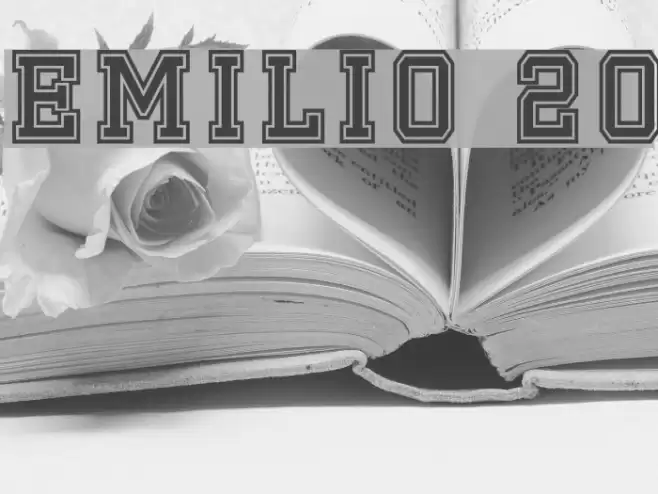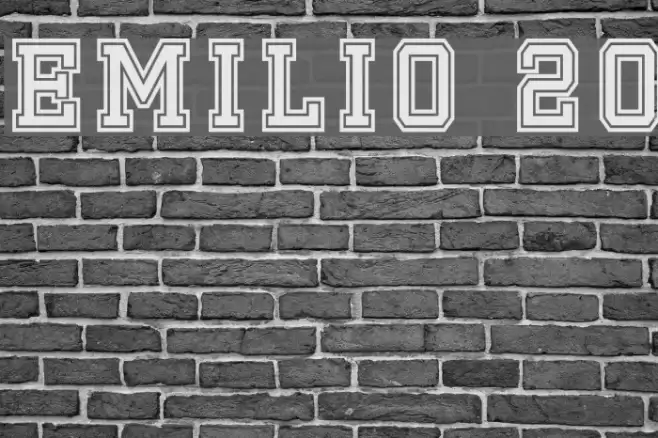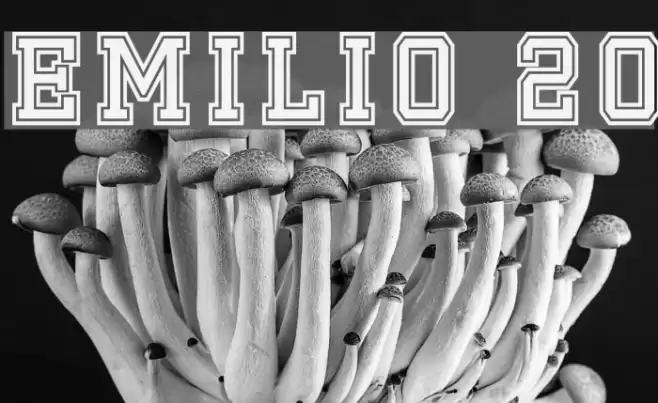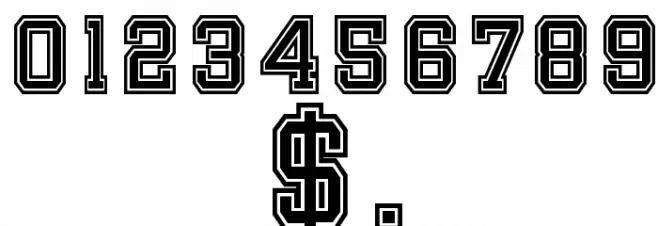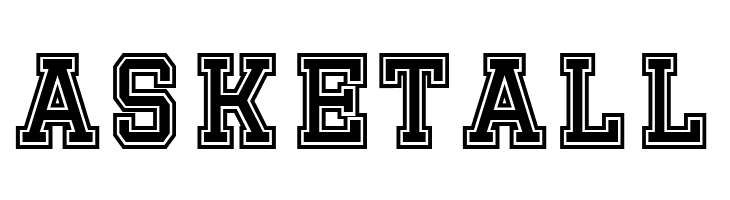
Emilio 20 Font
Emilio 20 Description
This font features a bold, outlined style with a strong, impactful presence. The characters are uppercase and have a collegiate or varsity aesthetic, reminiscent of sports team jerseys or university branding. The font is characterized by its double-line outline, giving it a dimensional effect that stands out. The numbers and special characters maintain the same bold outline, ensuring consistency across all glyphs. This font is ideal for creating a sense of strength and tradition, making it suitable for projects that require a commanding visual impact.
Bold, outlined font with a collegiate, varsity style from Uncategorized fonts.
- Proposed Projects: Ideal for sports team branding, university merchandise, posters, and event promotions.
- Overall Style: Classic